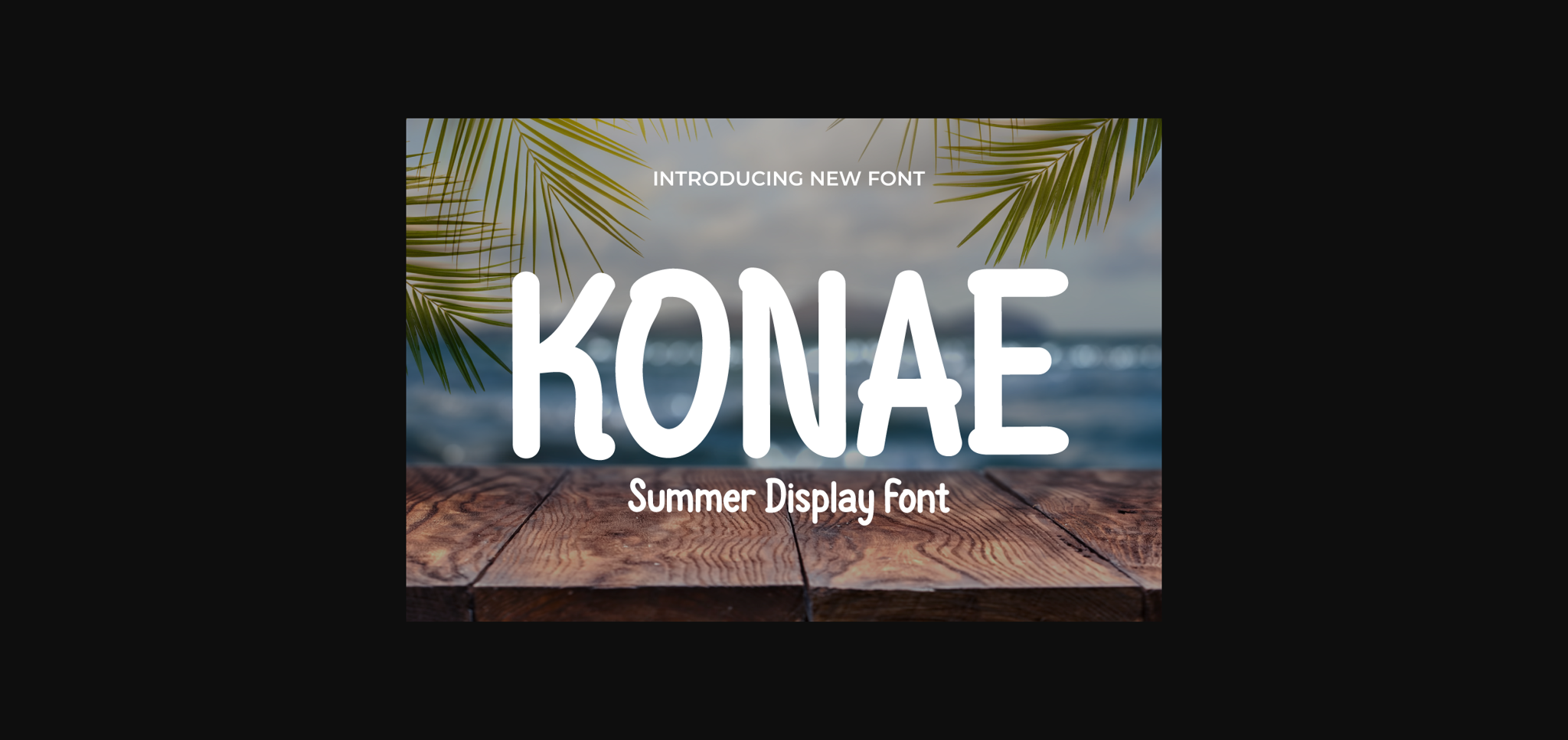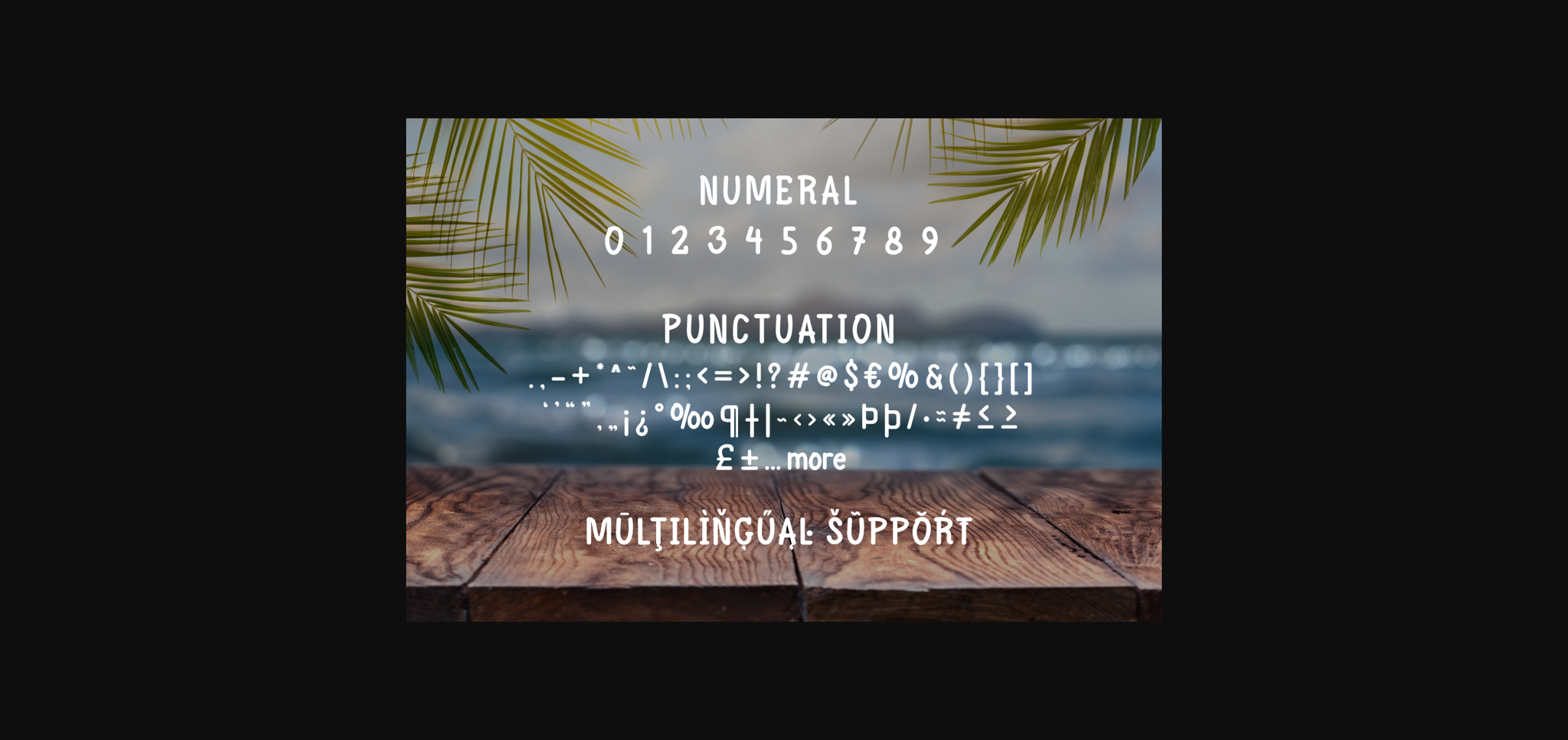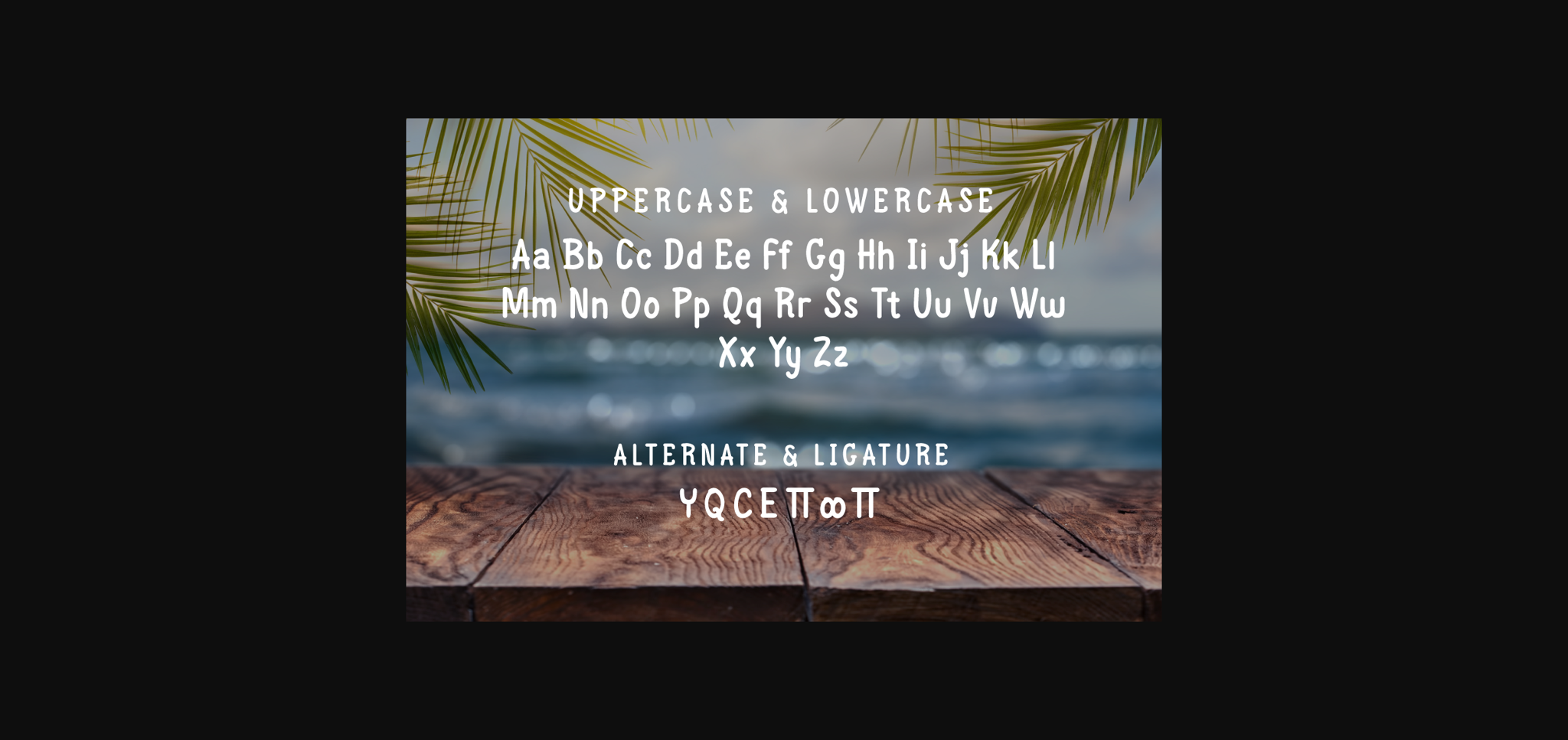
About Konae Font
Introducing “KONAE Font” – Your Passport to a Summer Wonderland.
KONAE Font is your key to unlocking the magic of summer in your design projects. With its playful and vibrant summer theme, this font is the perfect choice for adding a touch of the season’s joy to your creations. Whether you’re working on beach party invitations, tropical posters, or sun-kissed social media graphics, KONAE Font effortlessly captures the essence of summer, instantly grabbing attention and infusing your designs with the warmth of the season.
Crafted with the carefree spirit of summer in mind, KONAE Font radiates the energy and happiness of this sun-soaked time of year, creating an inviting and lively atmosphere in your designs.
Its versatility knows no bounds, seamlessly adapting to a wide range of summer-inspired projects, from travel brochures to festival advertisements.
KONAE Font enhances readability and flow with user-friendly OpenType features, ensuring your text looks great and flows smoothly. It also supports multiple languages, making it accessible to a global audience.
Elevate your creative endeavors and let the magic of summer shine through with KONAE Font. Explore this unique typeface today and bring the joyful essence of the season to your designs.
KONAE Font is your key to unlocking the magic of summer in your design projects. With its playful and vibrant summer theme, this font is the perfect choice for adding a touch of the season’s joy to your creations. Whether you’re working on beach party invitations, tropical posters, or sun-kissed social media graphics, KONAE Font effortlessly captures the essence of summer, instantly grabbing attention and infusing your designs with the warmth of the season.
Crafted with the carefree spirit of summer in mind, KONAE Font radiates the energy and happiness of this sun-soaked time of year, creating an inviting and lively atmosphere in your designs.
Its versatility knows no bounds, seamlessly adapting to a wide range of summer-inspired projects, from travel brochures to festival advertisements.
KONAE Font enhances readability and flow with user-friendly OpenType features, ensuring your text looks great and flows smoothly. It also supports multiple languages, making it accessible to a global audience.
Elevate your creative endeavors and let the magic of summer shine through with KONAE Font. Explore this unique typeface today and bring the joyful essence of the season to your designs.